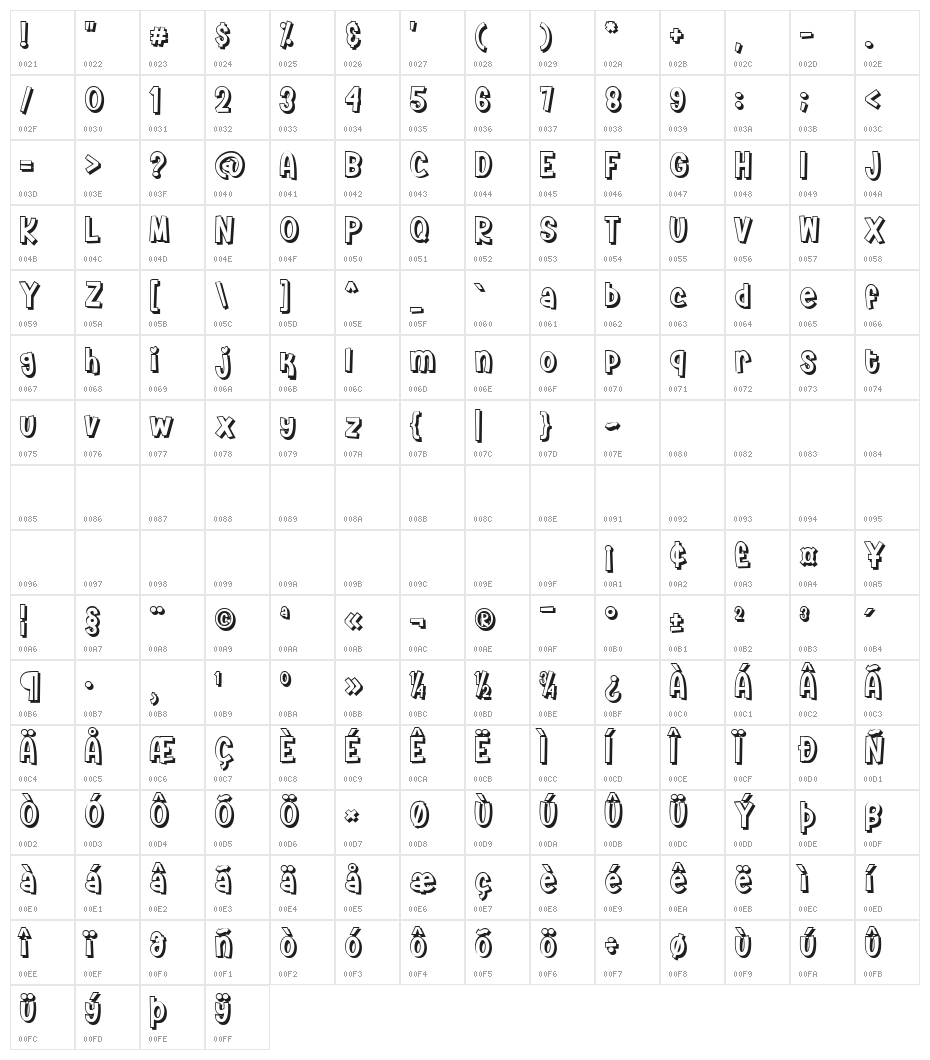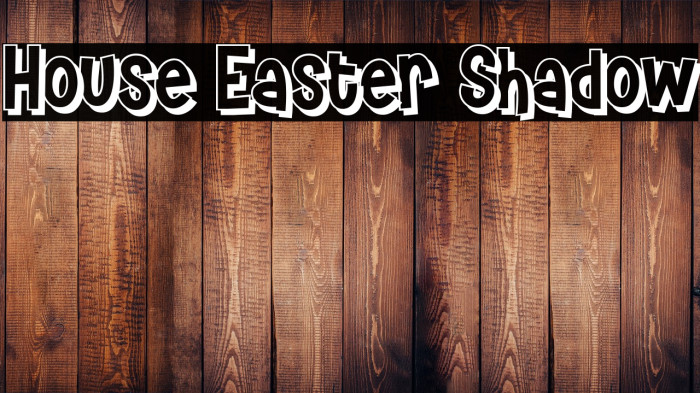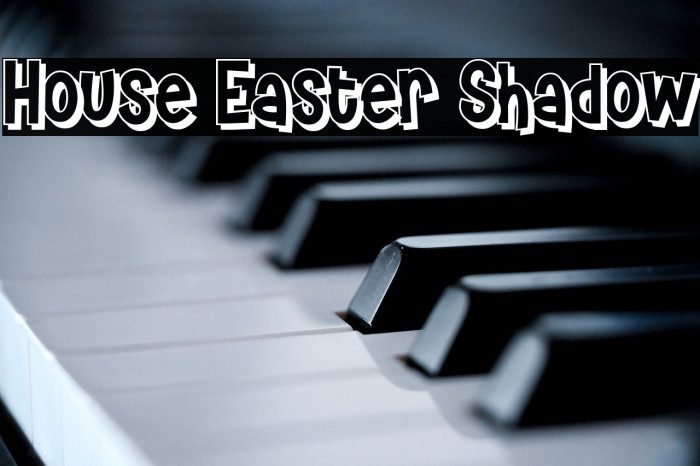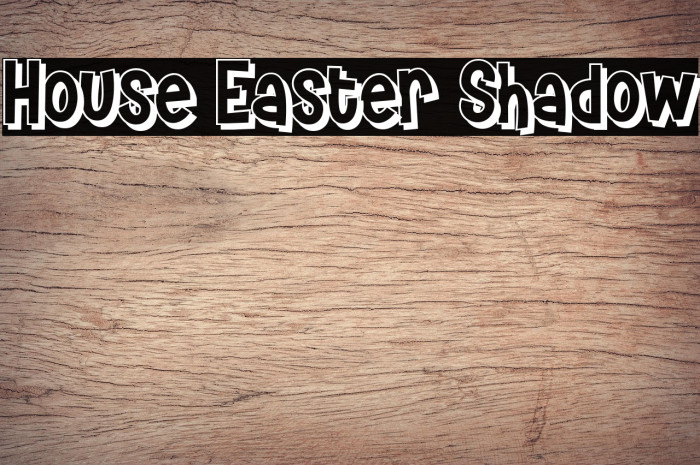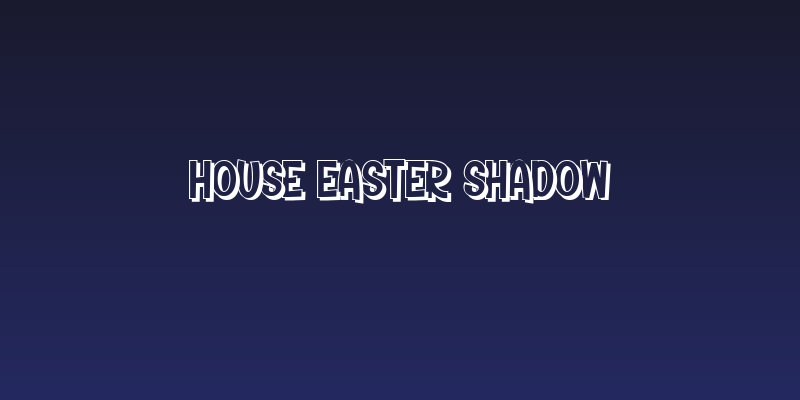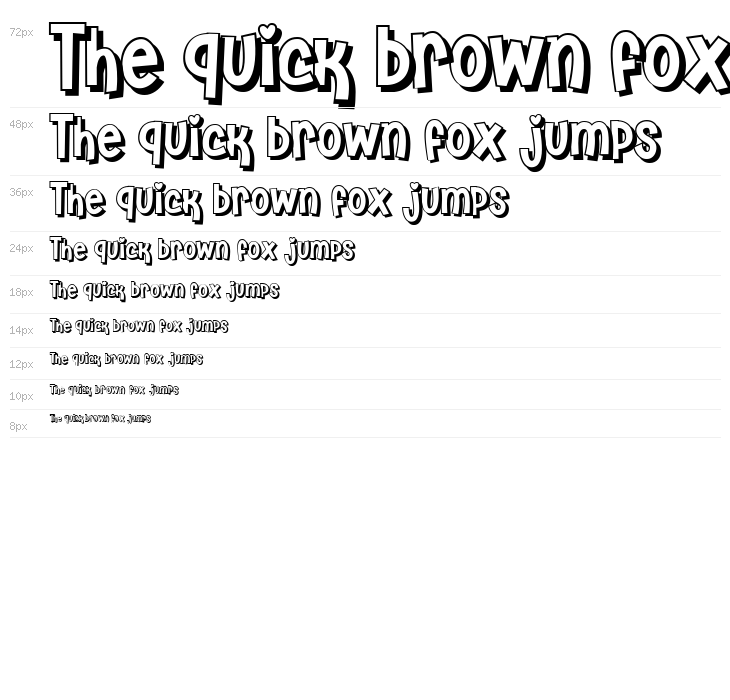
House Easter Shadow Font
| Gesamtstil | Playful, Cartoonish, Fun |
| Vorgeschlagene Projekte | Ideal for children's books, comic strips, playful branding, party invitations, and posters. |